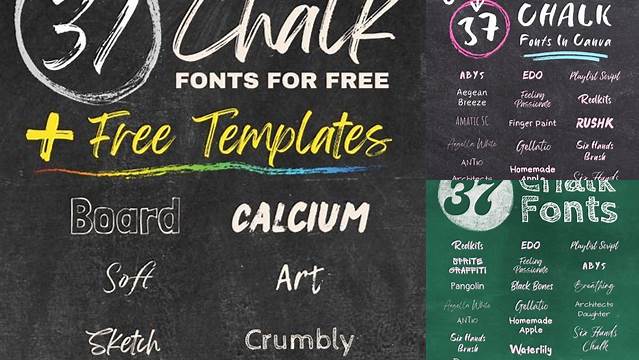
Free Chalk Fonts: Downloads And Usage Guide
Hey guys! Are you on the hunt for free chalk fonts to add that authentic chalkboard vibe to your designs? You've landed in the right place! Chalk fonts are incredibly versatile and can bring a touch of nostalgia, playfulness, or rustic charm to your projects. Whether you're designing a menu board, creating eye-catching posters, or adding a unique flair to your digital artwork, the perfect chalk font can make all the difference. In this comprehensive guide, we'll dive deep into the world of chalk fonts, exploring their uses, types, and where you can download them for free. We'll also provide tips on how to effectively use chalk fonts in your designs, ensuring they look fantastic and capture the desired mood. So, grab your virtual chalk, and let's get started!
Chalk fonts, with their hand-drawn, textured appearance, have become a popular choice for designers and creatives across various fields. The appeal lies in their ability to evoke a sense of warmth and authenticity, reminiscent of traditional chalkboard art. These fonts are not just limited to educational contexts; they can be seamlessly integrated into a wide array of projects, from restaurant menus and event invitations to website headers and social media graphics. The key to effectively using chalk fonts is understanding their unique characteristics and how they interact with other design elements. For instance, a bold, rugged chalk font might be perfect for a vintage-inspired poster, while a more delicate, refined chalk font could be ideal for wedding stationery. The versatility of chalk fonts stems from the diverse range of styles available, each offering a distinct personality and aesthetic. In the following sections, we'll explore these different styles and provide guidance on selecting the right font for your specific project needs. We'll also delve into the technical aspects of font usage, such as pairing chalk fonts with other font styles and optimizing them for different media, whether it's print or digital. So, stick around, and let's unlock the full potential of chalk fonts together!
What are Chalk Fonts?
Chalk fonts are designed to mimic the appearance of handwriting or lettering done with chalk on a chalkboard. They typically feature a textured, slightly imperfect look with rough edges and a somewhat uneven stroke weight, giving them a hand-drawn feel. The beauty of chalk fonts lies in their ability to transport us back to the classroom, evoking a sense of nostalgia and familiarity. This makes them particularly effective for projects that aim to convey a sense of authenticity, playfulness, or vintage charm. Think about the chalkboard signs outside cafes, the quirky menus in bistros, or the welcoming posters in local shops – these are all prime examples of how chalk fonts can be used to create a warm and inviting atmosphere. But chalk fonts are not just about aesthetics; they also serve a practical purpose. Their unique texture and visual weight can make text stand out, drawing the viewer's eye and ensuring that the message is effectively communicated. In the digital realm, chalk fonts can add a personal touch to websites, social media graphics, and presentations, helping to break the monotony of clean, corporate designs. So, whether you're a seasoned designer or just starting out, understanding the nuances of chalk fonts can significantly enhance your creative toolkit.
Chalk fonts are more than just a trendy design element; they are a versatile tool that can enhance the visual appeal and message of your projects. The textured, hand-drawn aesthetic of these fonts provides a unique contrast to the sleek, digital perfection often associated with modern design. This contrast can be particularly effective in creating a sense of authenticity and warmth, making chalk fonts a favorite among businesses that want to project a friendly and approachable image. For example, a restaurant using a chalk font on its menu can evoke a sense of homemade goodness and culinary craftsmanship. Similarly, a retail store can use chalk fonts in its signage to create a welcoming and inviting atmosphere. The imperfection inherent in chalk fonts adds a human touch, which can be especially valuable in an increasingly digital world. Moreover, chalk fonts come in a variety of styles, ranging from bold and rugged to delicate and refined, allowing you to choose the perfect font to match the tone and style of your project. The key is to use chalk fonts thoughtfully and strategically, ensuring that they complement the overall design and contribute to the message you want to convey. In the following sections, we'll explore the different types of chalk fonts and provide guidance on how to use them effectively in various design contexts.
Types of Chalk Fonts
There's a wide variety of chalk fonts available, each with its own unique character and style. Some are bold and rugged, perfect for headlines and titles, while others are more delicate and refined, suitable for body text or elegant invitations. Let's explore some common types:
- Bold Chalk Fonts: These fonts have thick strokes and a strong presence, making them ideal for headings, posters, and anything that needs to grab attention. They often have a slightly rough texture, adding to their rustic appeal.
- Script Chalk Fonts: These fonts mimic chalk handwriting and are perfect for adding a personal touch to your designs. They can range from playful and whimsical to elegant and sophisticated.
- Clean Chalk Fonts: These fonts have a cleaner, more legible appearance while still retaining the chalk texture. They are a good choice for body text or designs where readability is crucial.
- Decorative Chalk Fonts: These fonts often include extra elements like swirls, flourishes, or illustrations, making them perfect for eye-catching designs and special occasions.
Bold chalk fonts, as the name suggests, are characterized by their thick strokes and commanding presence. These fonts are the go-to choice when you need to make a statement, whether it's on a poster, a headline, or a promotional banner. Their rugged texture and strong visual weight ensure that your message stands out, capturing the viewer's attention instantly. Imagine a vintage-inspired poster for a local brewery, using a bold chalk font to announce the latest craft beer. Or picture a lively cafe menu board, with daily specials prominently displayed in a chunky, eye-catching chalk font. The versatility of bold chalk fonts lies in their ability to convey a sense of strength and authenticity, making them perfect for projects that aim to create a lasting impression. However, it's important to use them judiciously, as their bold nature can be overwhelming if overused. Pairing them with a more delicate font for body text can create a balanced and visually appealing design. In the following sections, we'll delve deeper into the nuances of font pairing and explore how to effectively incorporate bold chalk fonts into your creative projects. So, stay tuned, and let's unlock the full potential of these powerful fonts!
Script chalk fonts, on the other hand, offer a more personal and artistic touch. These fonts mimic the fluidity and elegance of handwritten chalk lettering, making them ideal for projects that require a touch of sophistication or whimsy. Think about wedding invitations, greeting cards, or even logos for businesses that want to project a friendly and approachable image. Script chalk fonts can range from playful and casual to elegant and formal, offering a wide range of options to suit different design needs. A delicate, flowing script chalk font can add a touch of romance to a wedding invitation, while a more playful and casual script chalk font can be perfect for a children's book cover. The key to effectively using script chalk fonts is to consider the overall tone and style of your project. They pair well with both bold and clean fonts, allowing you to create a balanced and visually appealing design. However, it's important to ensure that the script is legible, especially when used for body text. In the next section, we'll explore clean chalk fonts, which offer a more readable alternative for longer passages of text. So, let's continue our journey into the world of chalk fonts and discover the perfect font for your next project!
Clean chalk fonts provide a unique solution for designers who want the charm of a chalk aesthetic without sacrificing readability. Unlike their bolder or more stylized counterparts, clean chalk fonts maintain a clear and legible appearance, making them suitable for a wider range of applications. These fonts typically feature smoother edges and a more consistent stroke weight, allowing them to be used effectively in body text, website content, and other situations where clarity is paramount. Imagine a well-designed website for a bakery, using a clean chalk font for its product descriptions and menu listings. Or picture a set of instructions for a DIY project, presented in a friendly and easy-to-read clean chalk font. The versatility of clean chalk fonts lies in their ability to strike a balance between aesthetic appeal and practical functionality. They offer the warmth and authenticity of a chalk texture, while still ensuring that your message is easily understood. When choosing a clean chalk font, it's important to consider the overall design context. Pairing it with a bolder font for headings or titles can create a visually dynamic and engaging layout. In the following sections, we'll explore decorative chalk fonts, which offer even more creative possibilities for your design projects. So, let's continue our exploration and discover the perfect chalk font to enhance your visual communication!
Decorative chalk fonts are the creative mavericks of the chalk font family. These fonts go beyond the basics, incorporating unique design elements such as swirls, flourishes, illustrations, and other artistic embellishments. They are the perfect choice when you want to add a touch of whimsy, elegance, or personality to your designs. Think about posters for special events, invitations for festive occasions, or logos for businesses that want to stand out from the crowd. Decorative chalk fonts can transform a simple design into a visual masterpiece, capturing the viewer's attention and leaving a lasting impression. Imagine a poster for a children's party, adorned with a playful decorative chalk font that incorporates balloons, stars, and other fun illustrations. Or picture an invitation for a vintage-themed cocktail party, featuring an elegant decorative chalk font with intricate swirls and flourishes. The possibilities are endless! However, it's important to use decorative chalk fonts judiciously, as their elaborate nature can sometimes overwhelm a design. Pairing them with simpler fonts for body text and other essential elements can create a balanced and visually appealing composition. In the next section, we'll delve into the world of free chalk fonts and explore where you can find high-quality options to enhance your design projects. So, let's continue our journey and discover the perfect chalk font to bring your creative vision to life!